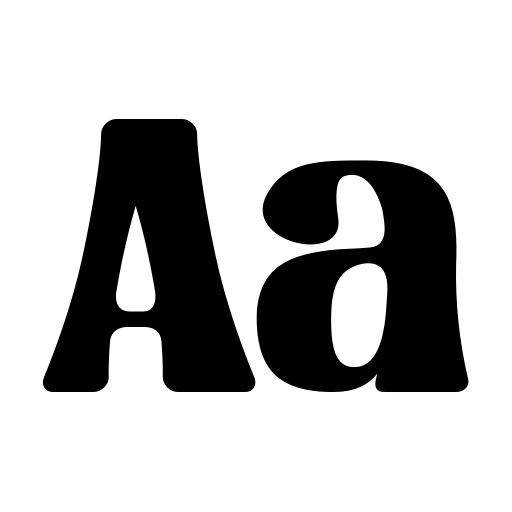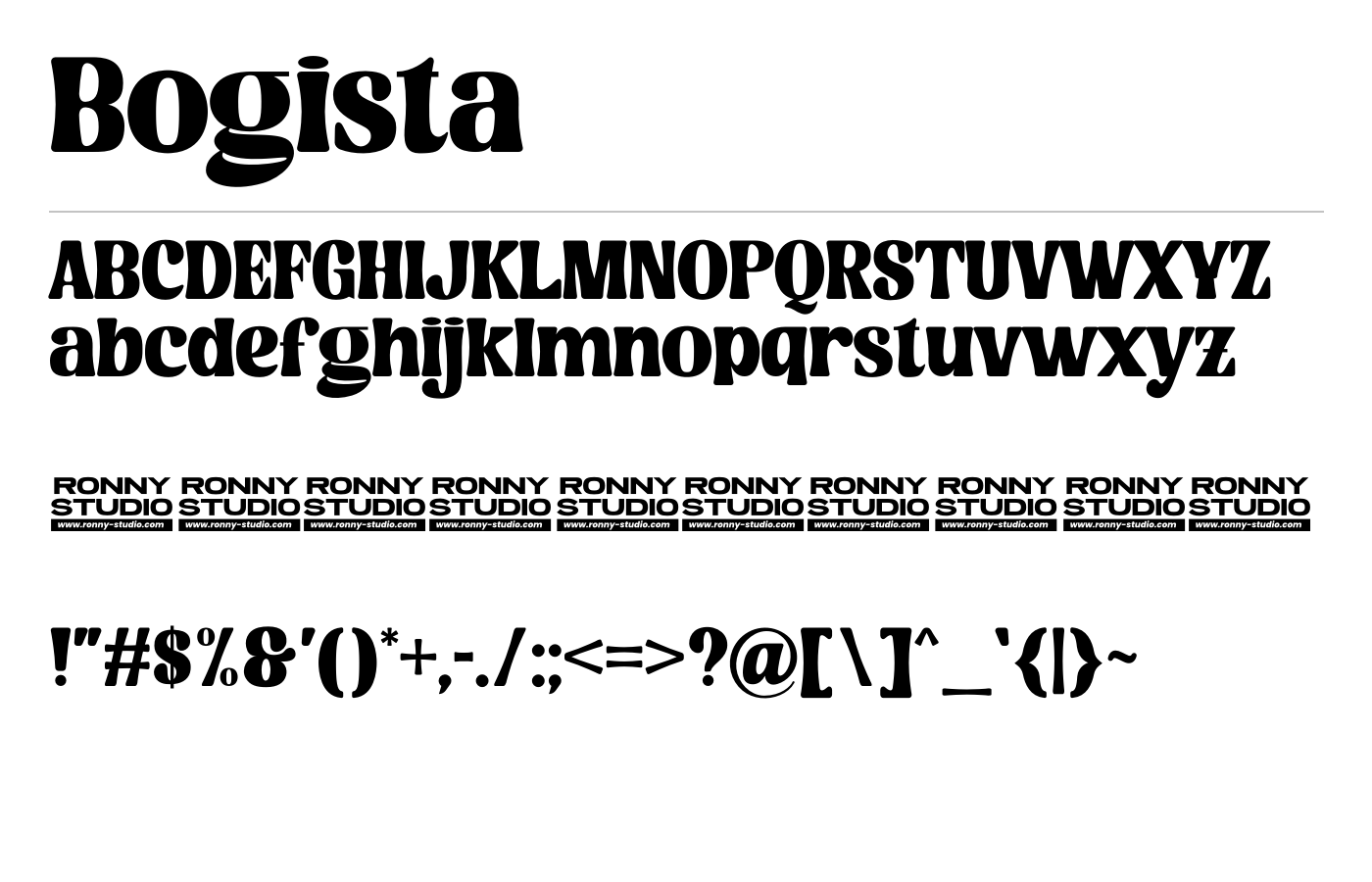
Bogista is a bold serif typeface with a strong, playful personality characterized by its thick, rounded serifs and high stroke contrast. Its chunky letterforms and distinctive quirky details make it perfect for eye-catching headlines, logos, and branding that requires a confident yet approachable tone. This font works well in creative, vintage-inspired, or fun design projects where personality and impact are essential.
Bogista Font
About Bogista Font